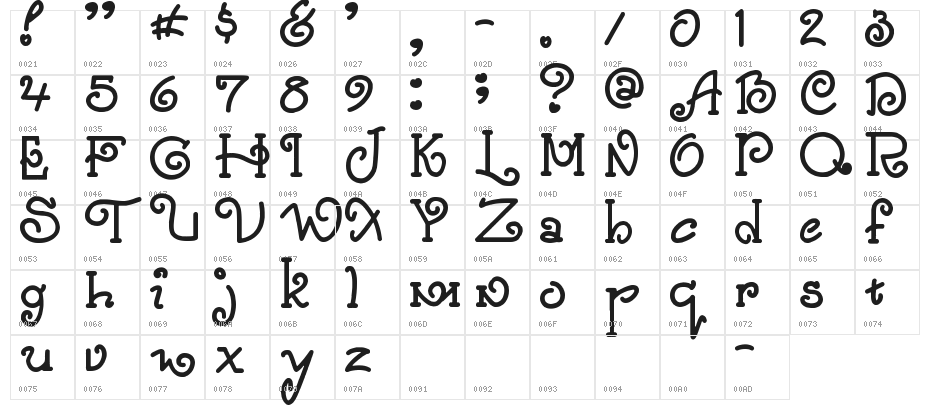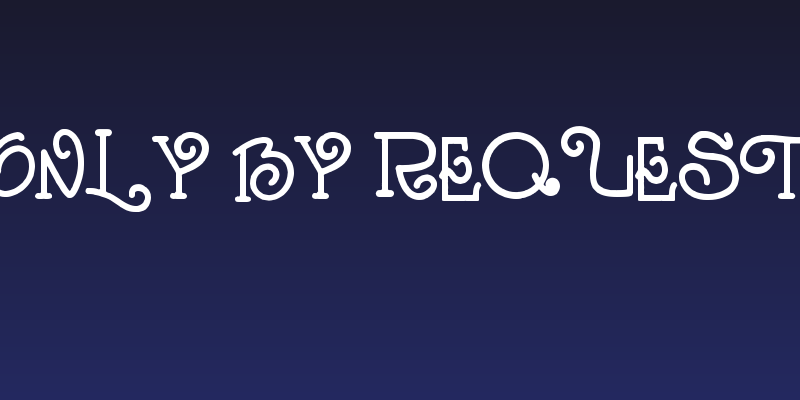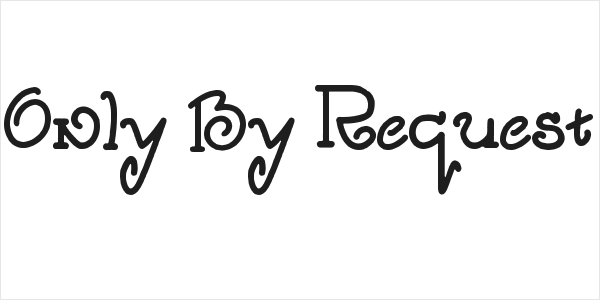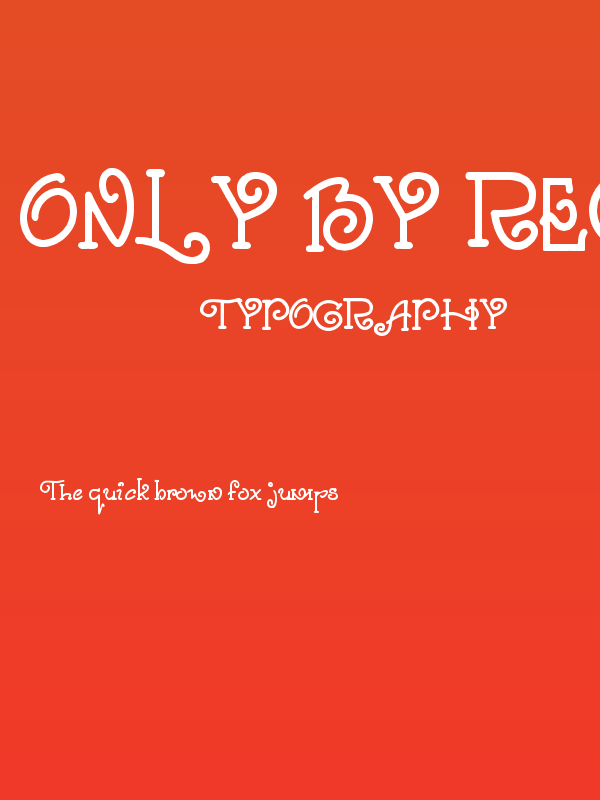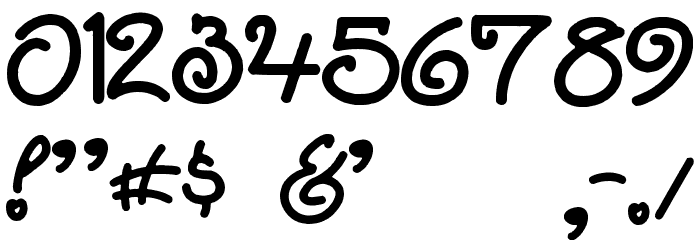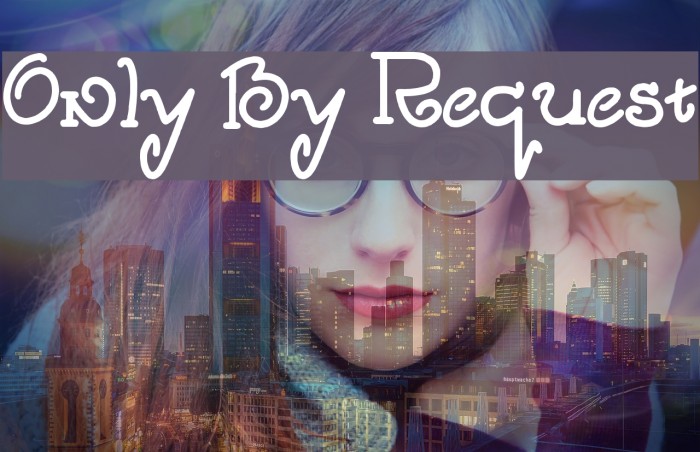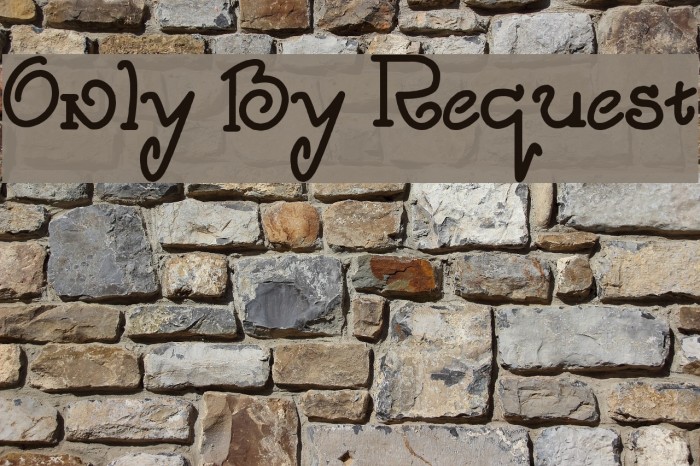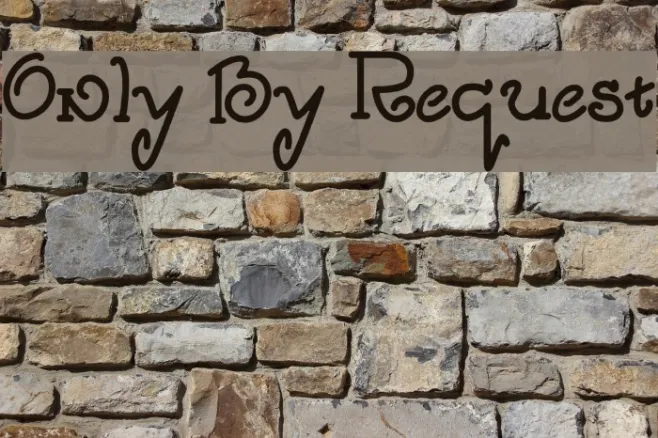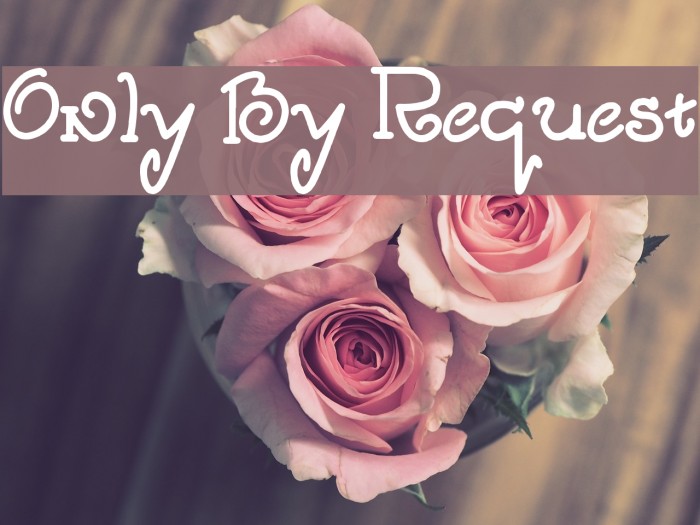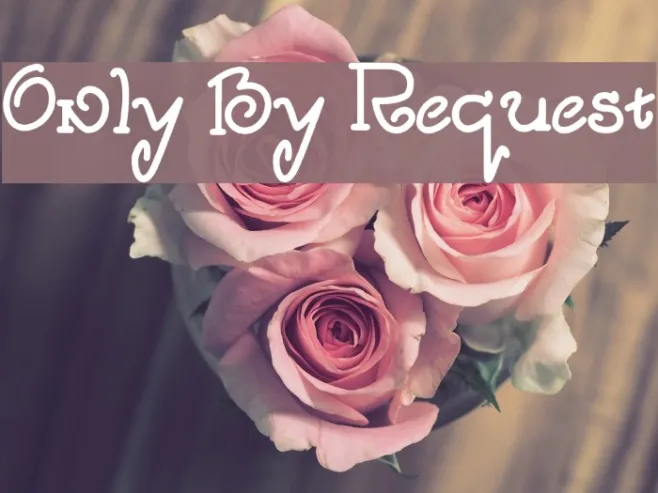
Only By Request Font
Only By Request Description
This font features a whimsical and playful design, characterized by its curly and decorative elements. The uppercase letters exhibit a unique blend of curves and loops, giving them a lively appearance. The lowercase letters continue this theme with a slightly more compact form, maintaining the decorative style. Numbers are bold and follow the same playful design, ensuring consistency across the character set. Special characters are equally ornate, adding to the overall charm. The font's style is reminiscent of a hand-drawn or artistic approach, making it stand out with its distinct personality.
| Overall Style | Playful and Artistic |
| Use Case | Headlines, Logos, Creative Projects |